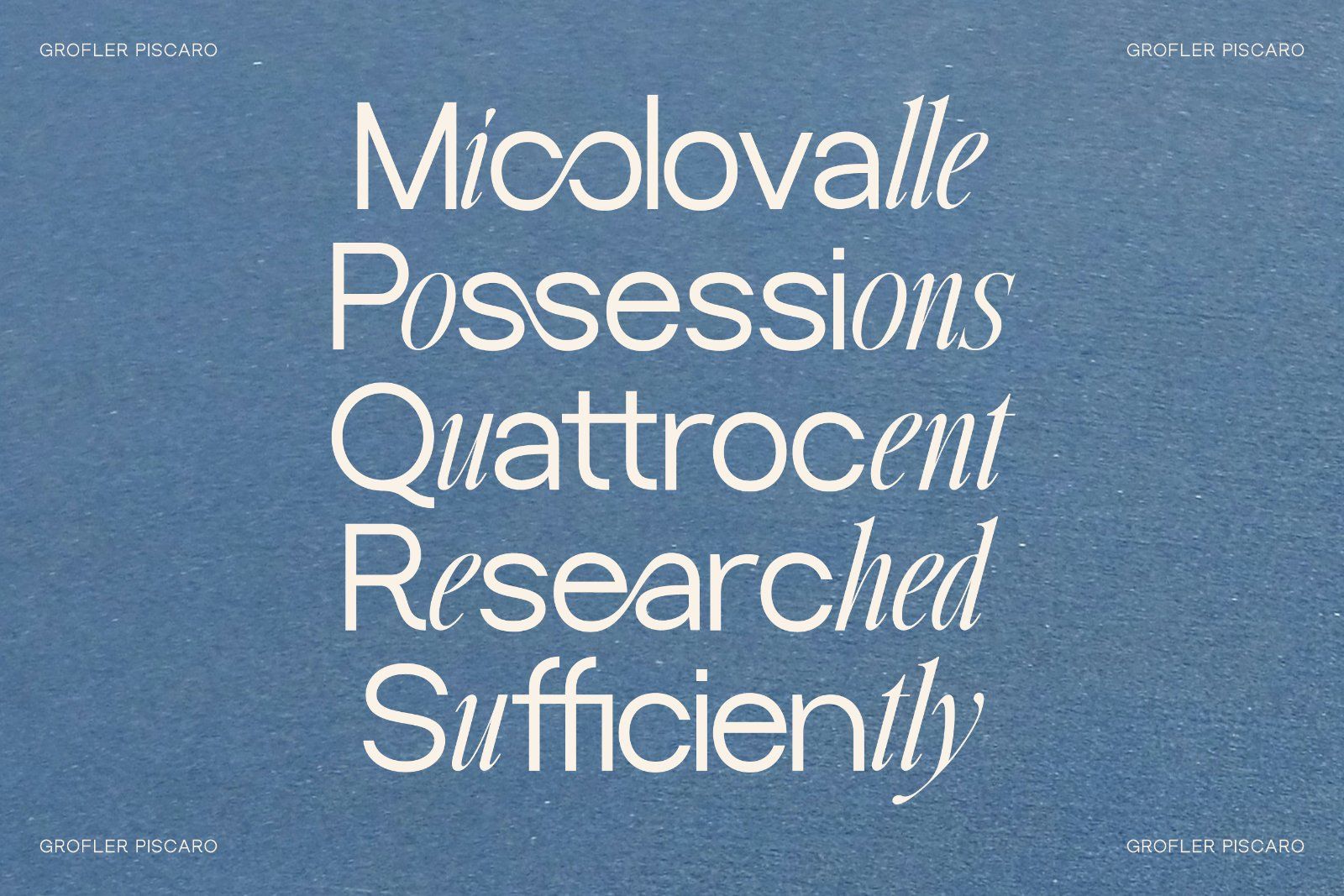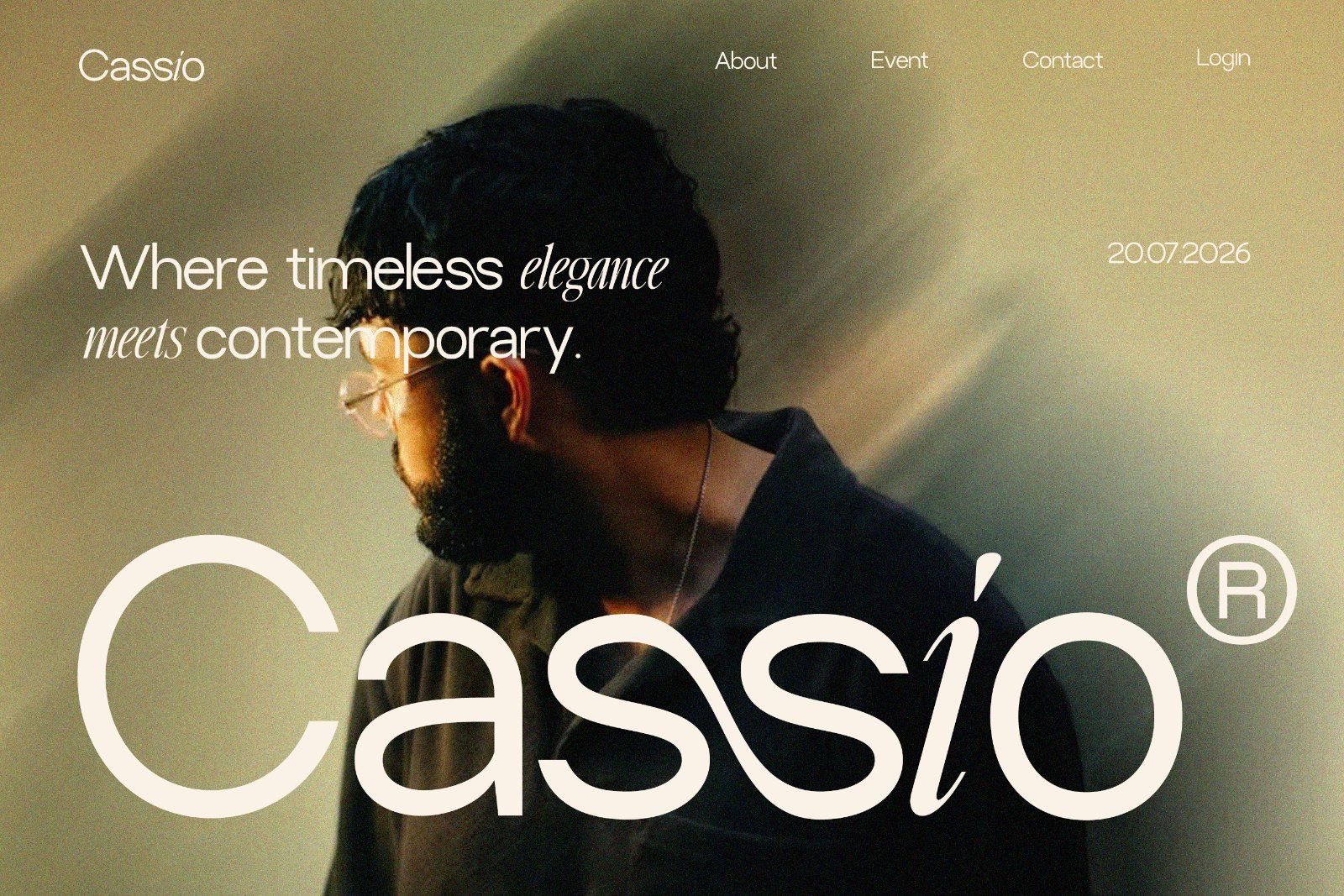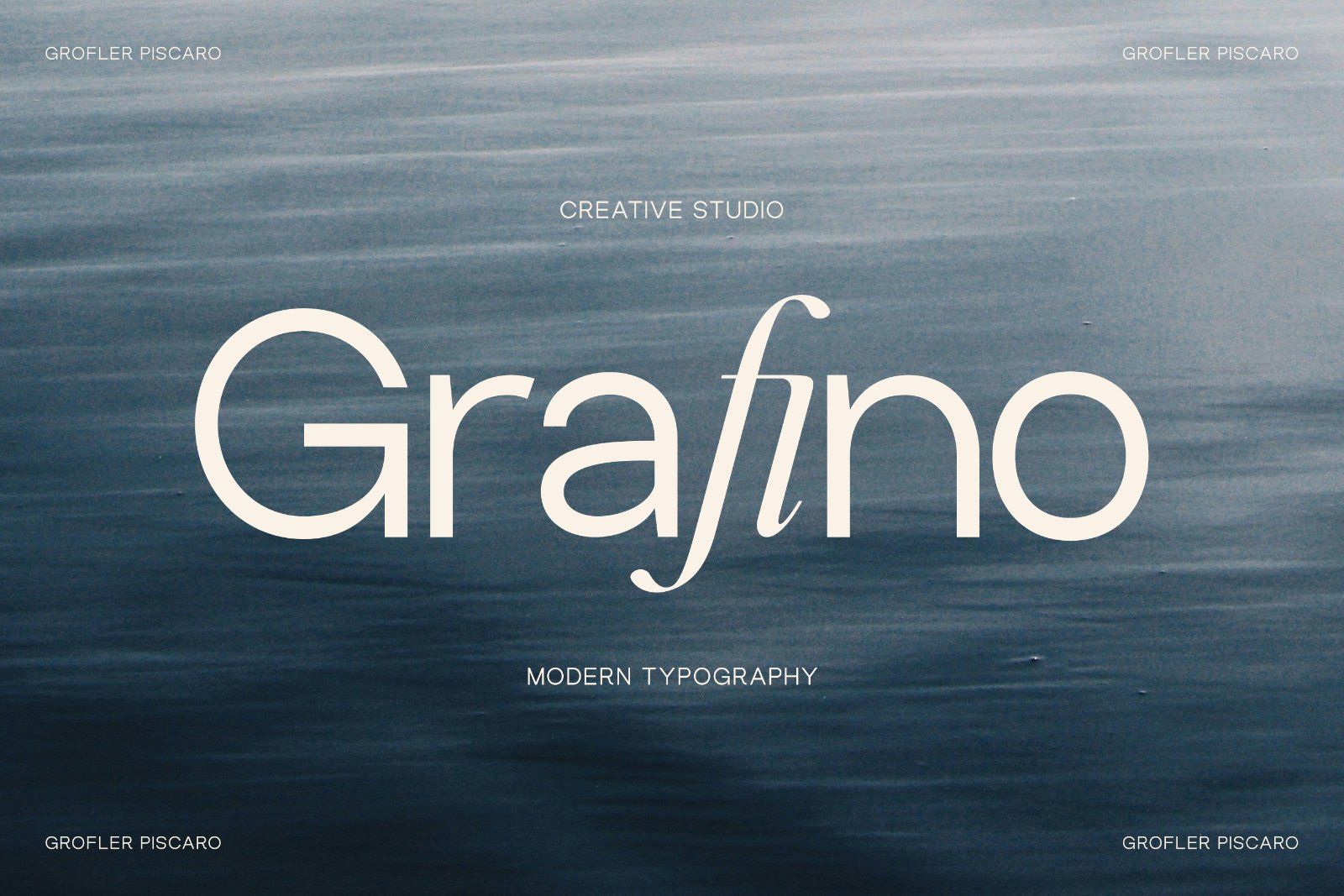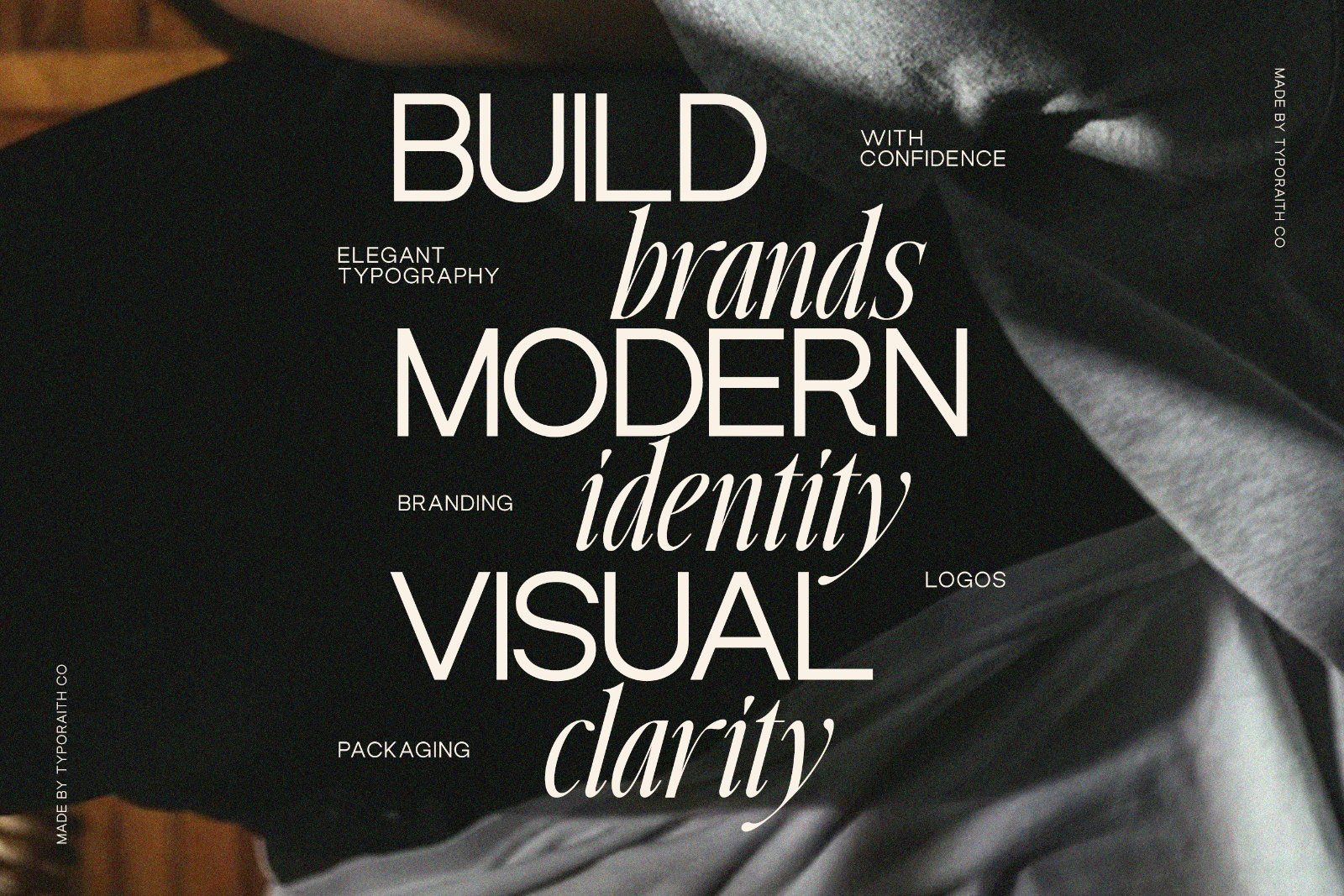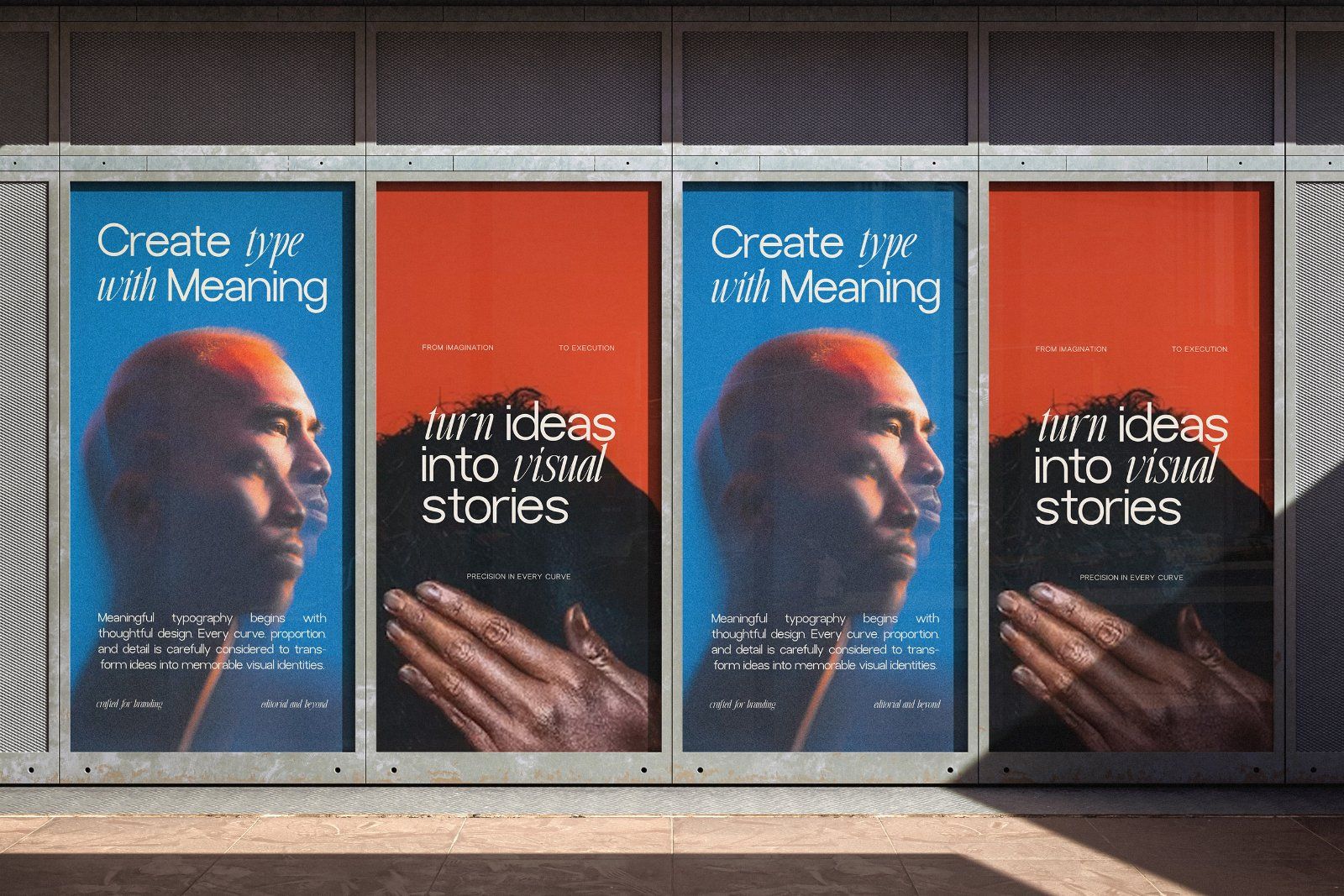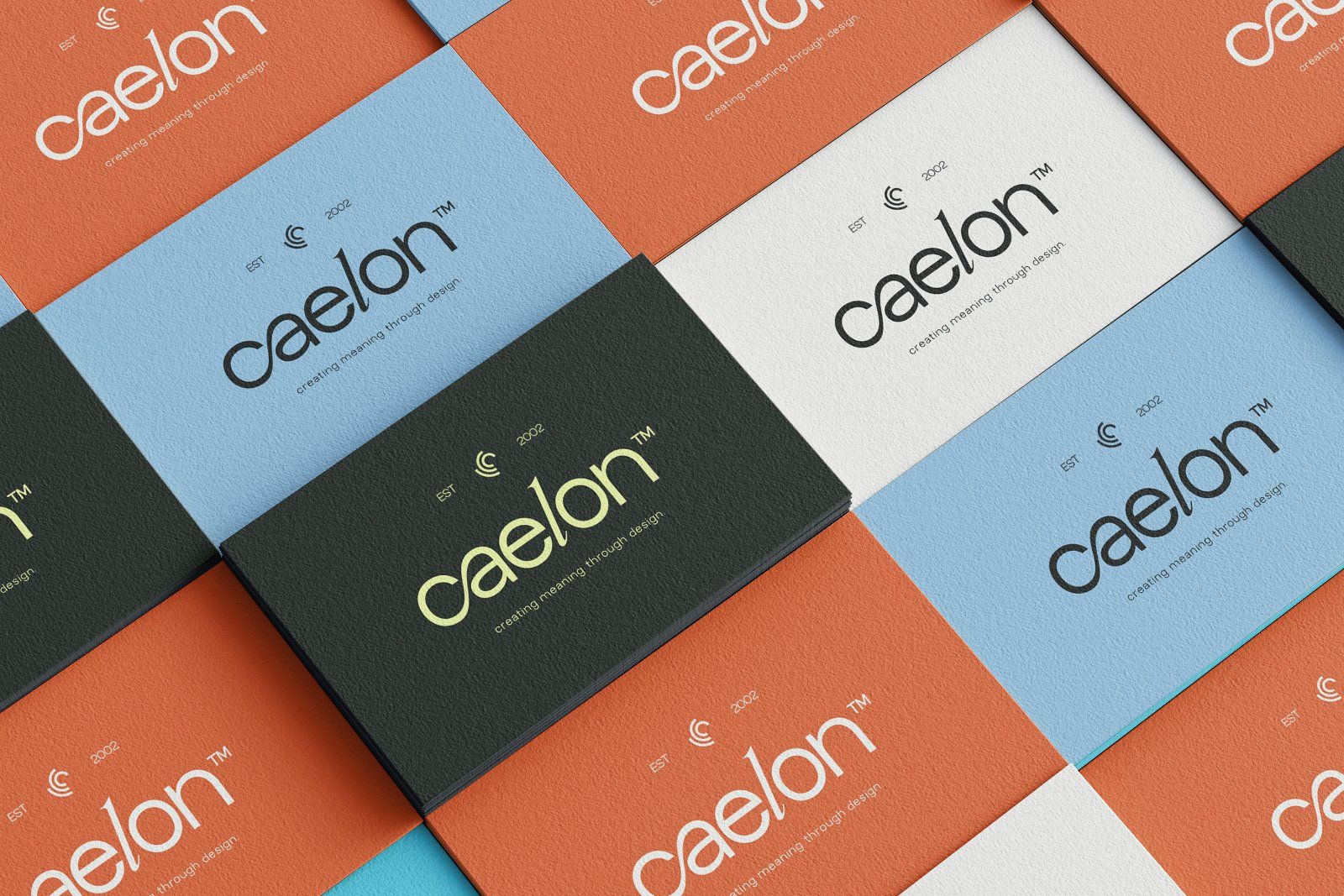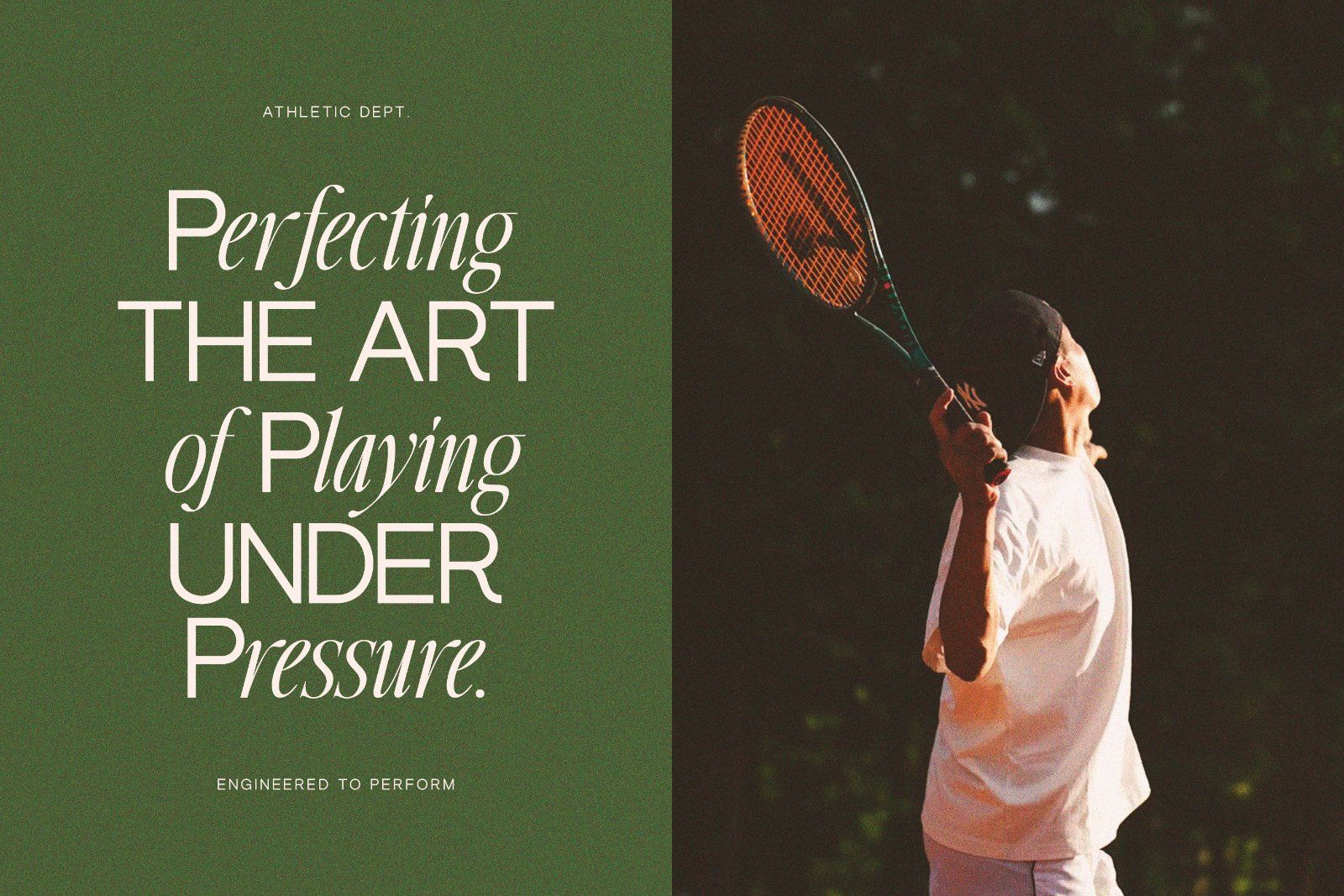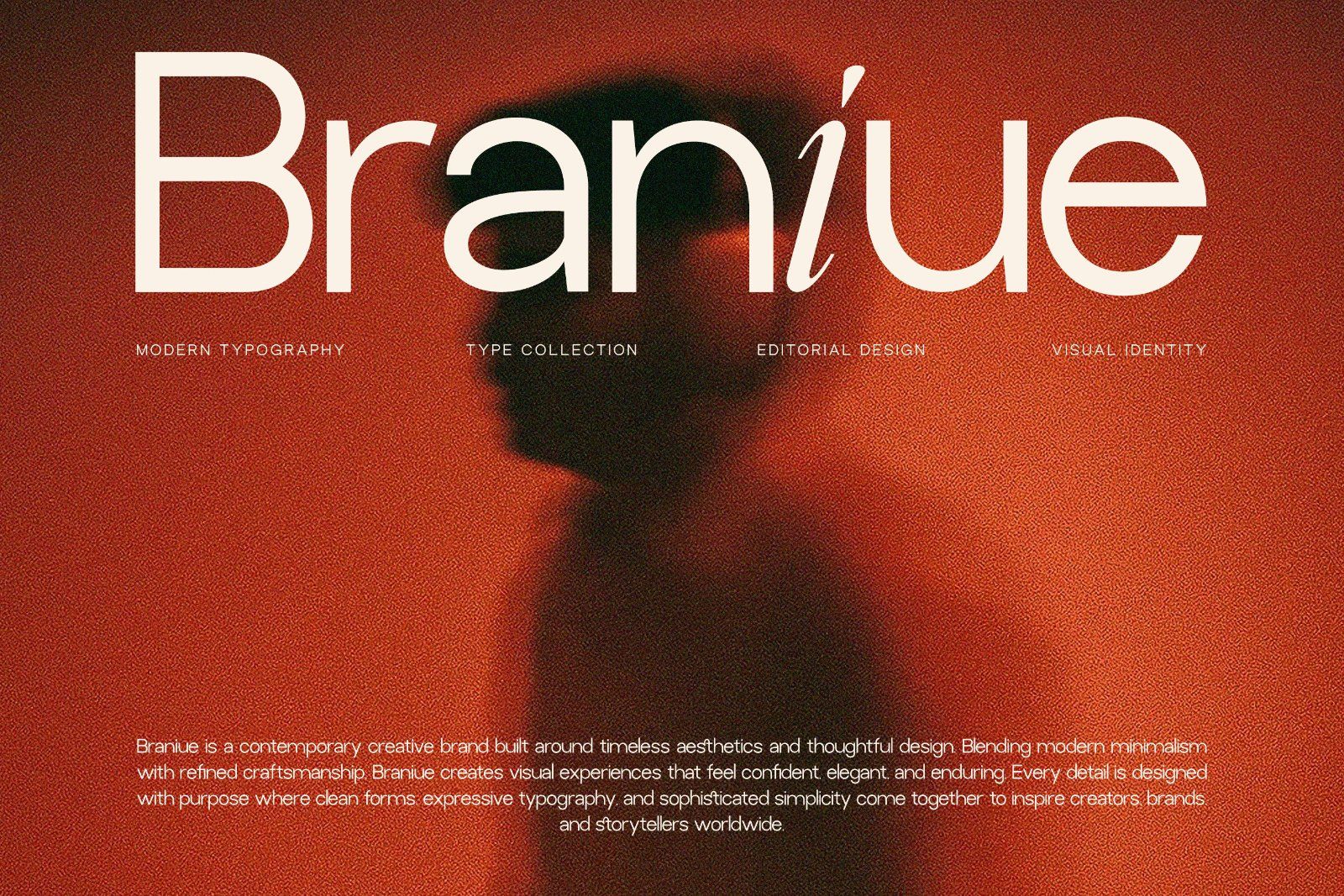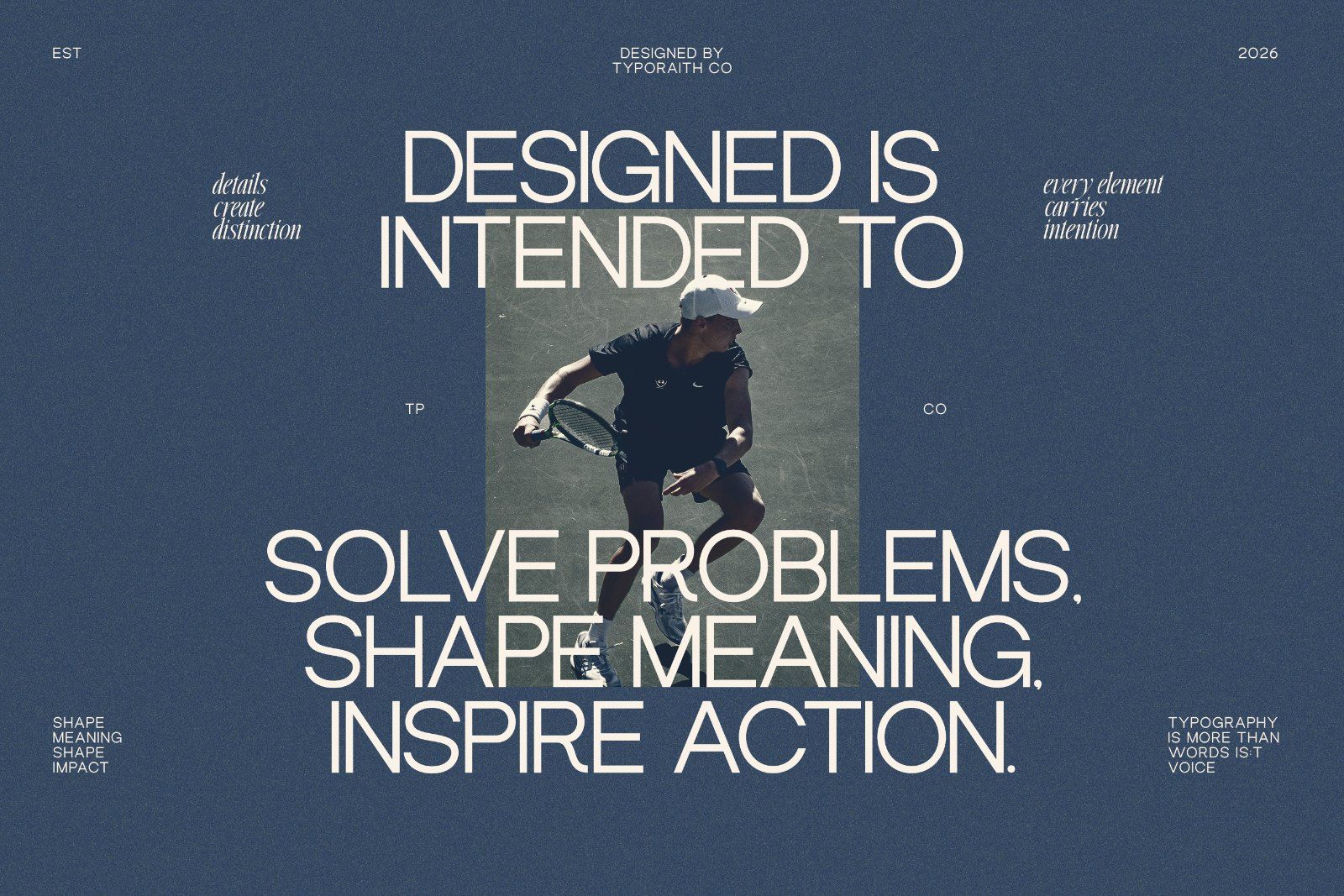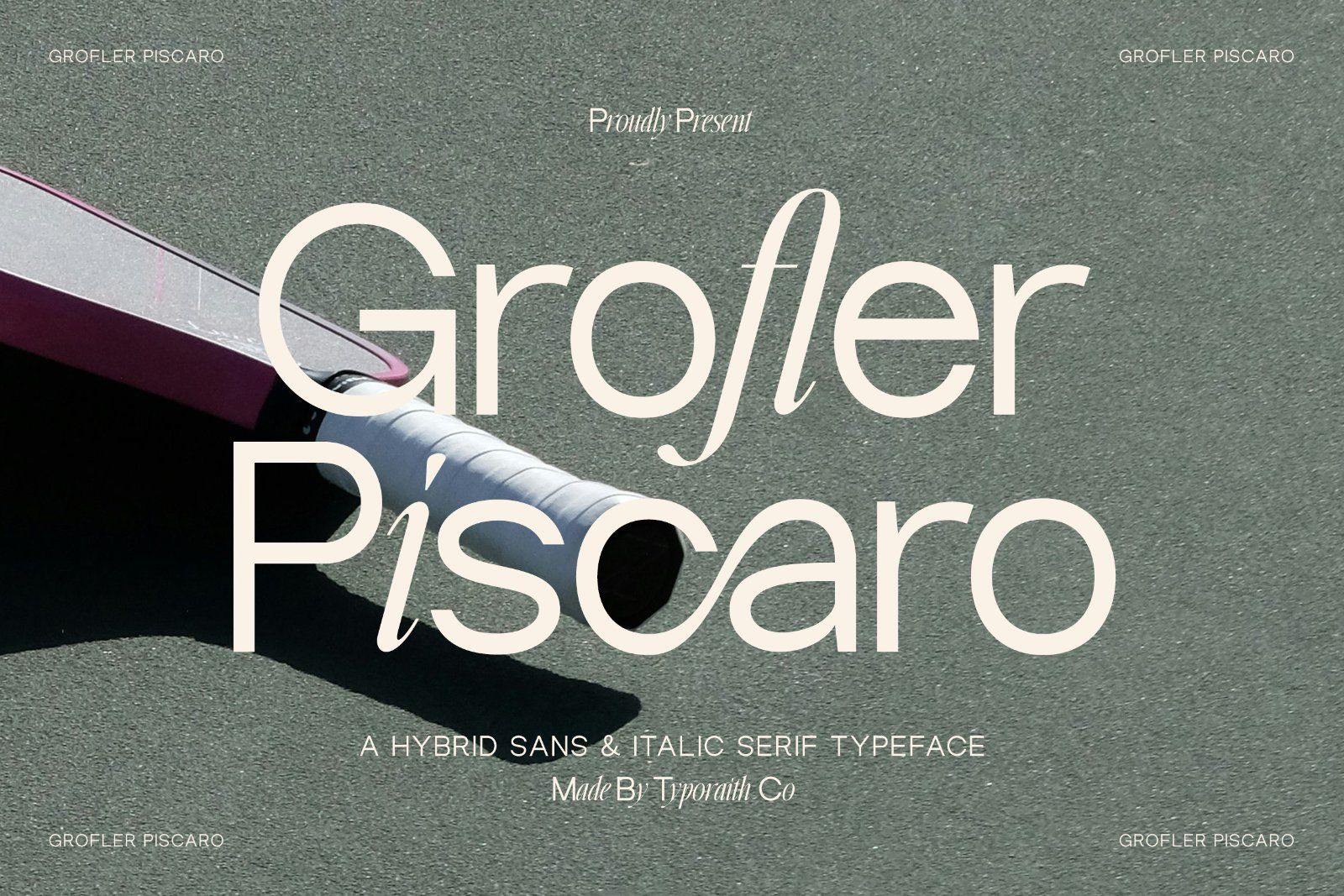
Grofler Piscaro is a refined hybrid typeface that seamlessly combines the clean structure of a modern sans serif with the graceful elegance of an italic serif. Designed for creatives who appreciate timeless aesthetics with a contemporary edge, it delivers a sophisticated visual identity that feels both minimal and expressive.
The harmonious contrast between the geometric sans characters and the flowing italic serif creates a unique rhythm, making Grofler Piscaro an excellent choice for premium branding, editorial layouts, fashion campaigns, luxury packaging, magazine headlines, social media content, logos, websites, and modern visual identities.
Whether you're crafting a high-end brand or an editorial-inspired design, Grofler Piscaro offers the versatility to create striking typography with effortless elegance.
Perfect For :
• Luxury Branding
• Editorial Design
• Fashion & Beauty
• Logo Design
• Packaging
• Magazine Covers
• Website Headers
• Social Media Graphics
• Invitations
• Creative Projects
• Hybrid Sans & Italic Serif
• Uppercase & Lowercase Characters
• Numbers & Punctuation
• Stylistic Alternates
• Ligatures
Grofler Piscaro is thoughtfully crafted to bring elegance, clarity, and personality into every project. From bold headlines to sophisticated branding systems, this typeface helps your designs communicate with confidence and refined style.